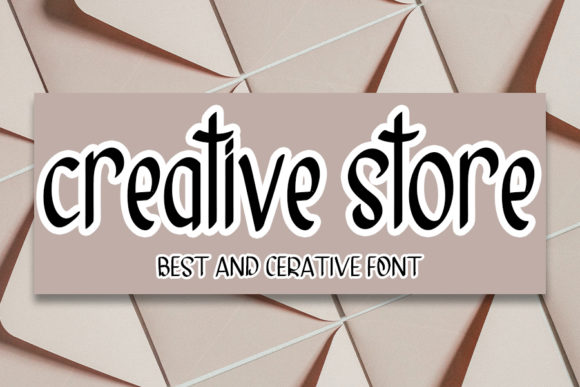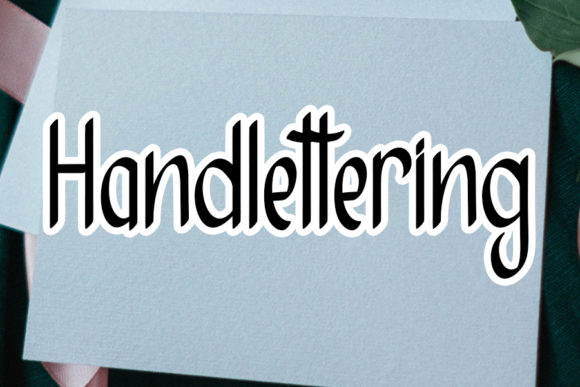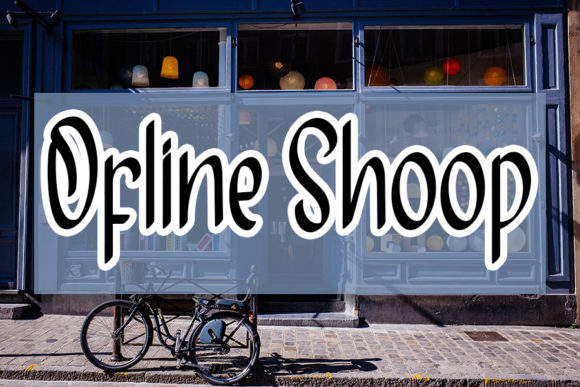
Creative Store Font
About Creative Store Font
“Creative Store” emerges as a sweet and friendly handwritten font, distinguished by its natural and unique style that effortlessly adapts to a vast array of designs. This font exudes an air of warmth that beckons you to explore its creative potential, with the only boundary being the limits of your imagination.
What sets “Creative Store” apart is its inherent ability to exude a sense of sweetness and approachability. Each meticulously designed letter carries an aura of authenticity, evoking the charm of handwritten craftsmanship. With every stroke, “Creative Store” weaves a narrative of friendliness and unbounded creative possibilities.
Visualize the transformative power of “Creative Store” across a myriad of designs—a playful poster brought to life by the font’s whimsical script, captivating viewers with its friendly allure. Picture the font gracing a charming boutique’s logo, infusing the brand with an inviting aura. The font’s versatility extends seamlessly across diverse contexts, enriching your projects with an element of enduring charm.
The natural charisma of “Creative Store” is magnetic, akin to a genuine connection that emanates from the page. Its letters flow with ease, imparting a sense of comfort that elevates the overall design. The font carries an aura of timeless appeal, encouraging creators to embark on a journey of artistic exploration.
Designers and enthusiasts alike will undoubtedly be captivated by the sweet allure of “Creative Store.” Its adaptability transcends norms, making it an indispensable tool for various projects. Beyond being a mere font, “Creative Store” transforms into a medium of expression, allowing creators to infuse their work with a touch of genuine friendliness.
In essence, “Creative Store” stands as a testament to the artistry that typography can encompass. Its sweet and friendly charm beckons you to immerse yourself in the world of design, transforming your ideas into tangible creations that radiate warmth. As you navigate the limitless realms of creativity, let “Creative Store” be your guiding light, leading you to craft designs that reflect the essence of approachability and create a lasting impact on every canvas, all while celebrating the authenticity of your creative imagination.